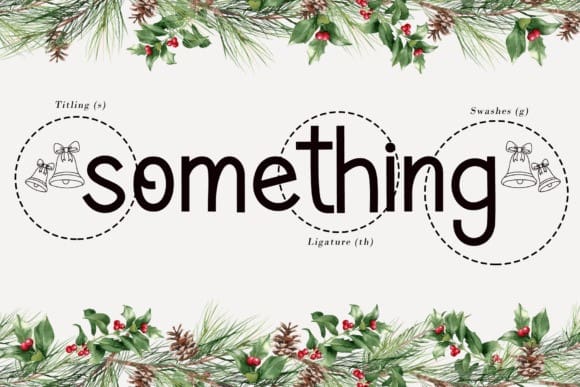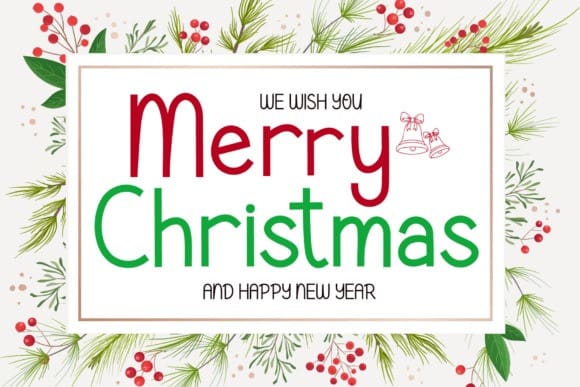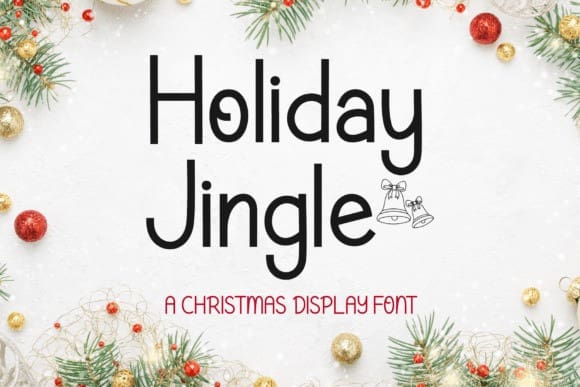
Holiday Jingle Font
Holiday Jingle Font: Sweeten up your Christmas projects with this playful HolidayJingle font. The letters are in a simple, neat, and adaptable handwritten font. This font is ideal for Christmas greeting cards, winter promotions, Christmas banners, and social media graphics, bringing a fresh and chilly vibe that’s perfect for the season and spreading holiday cheer.